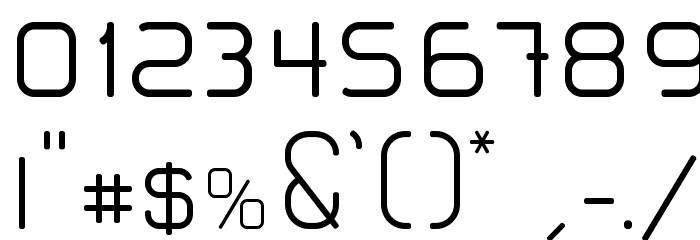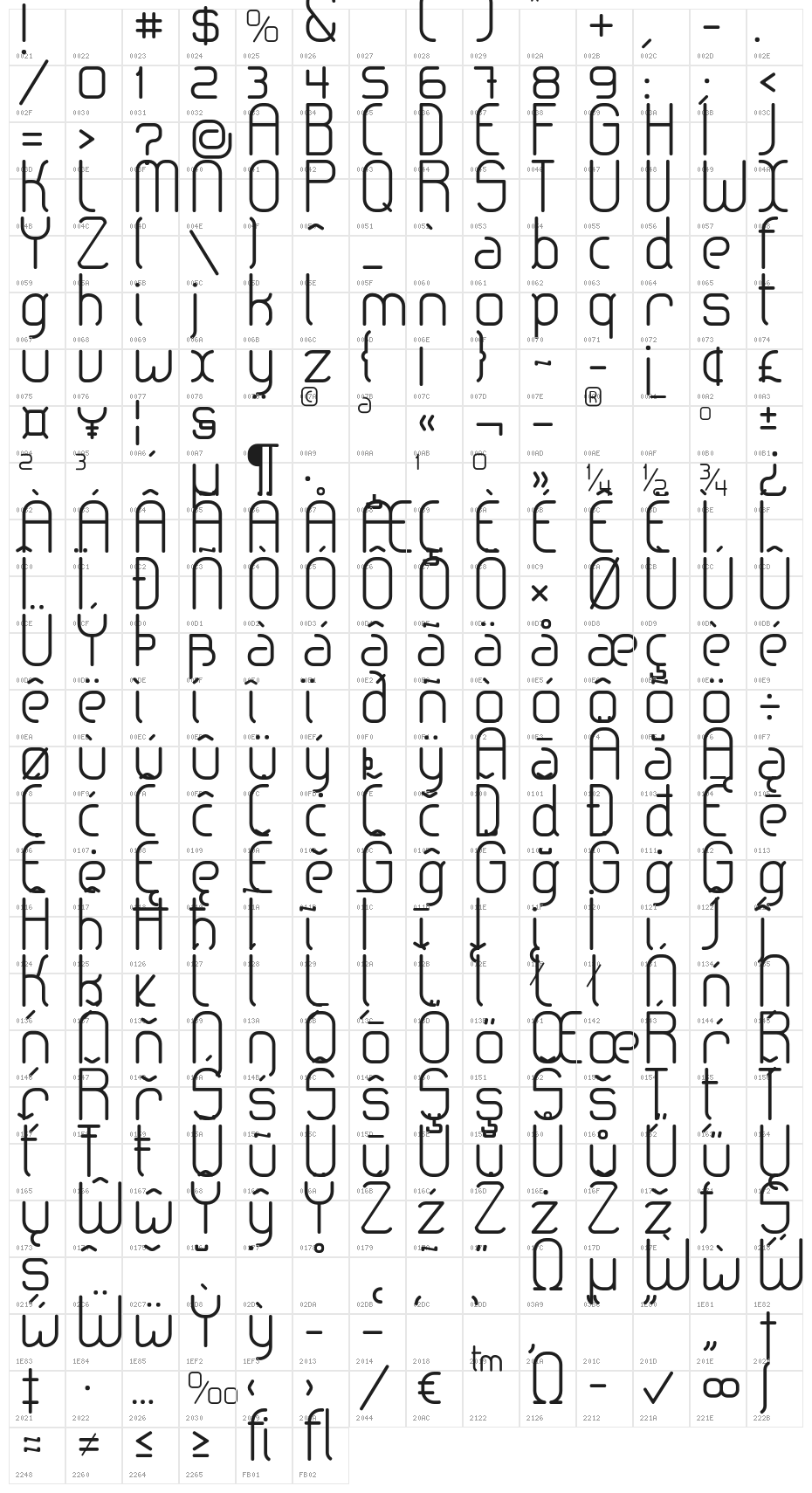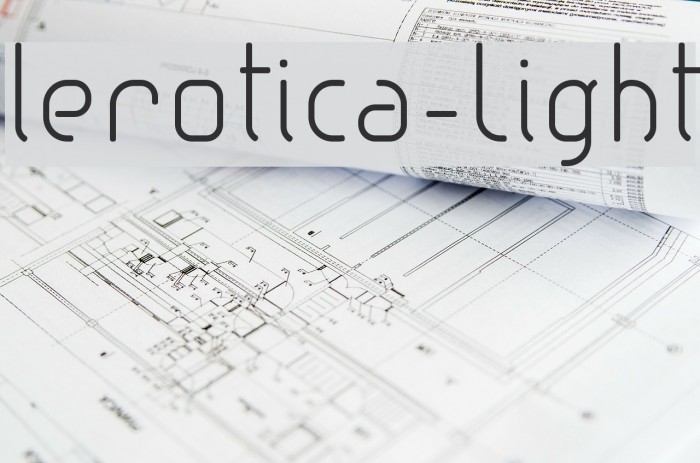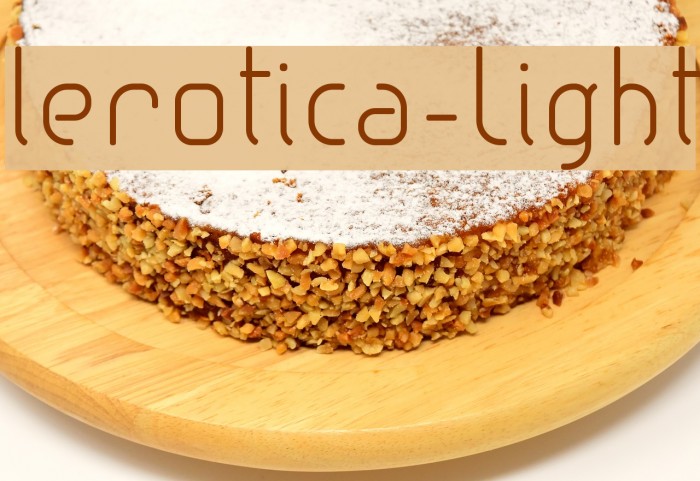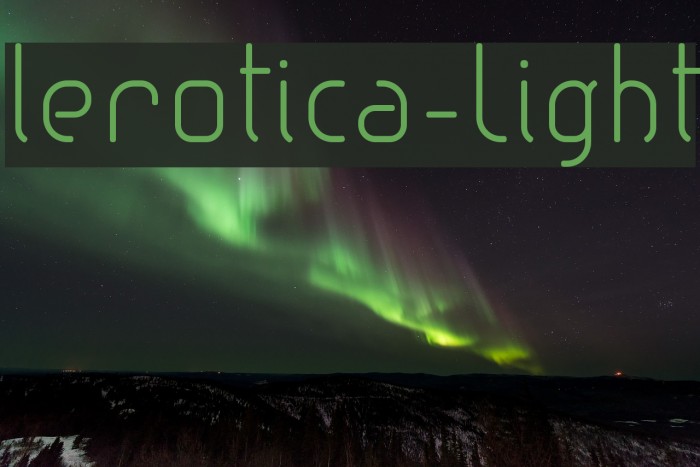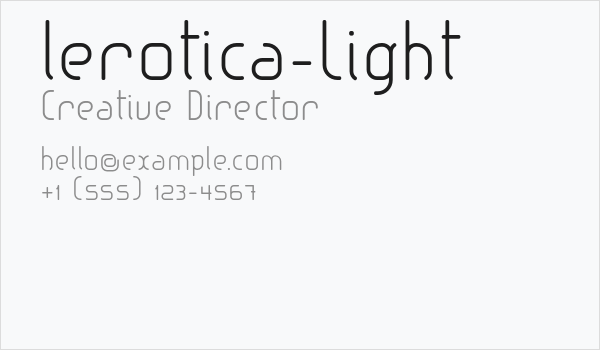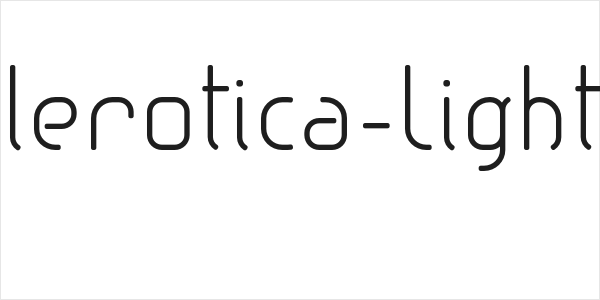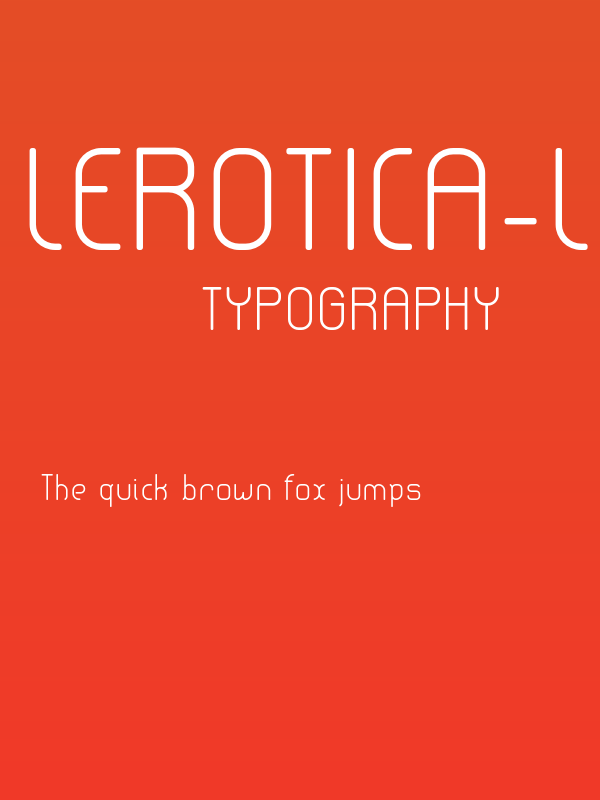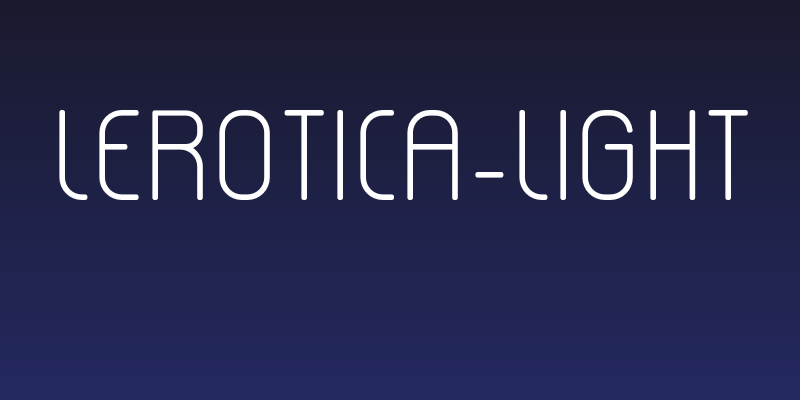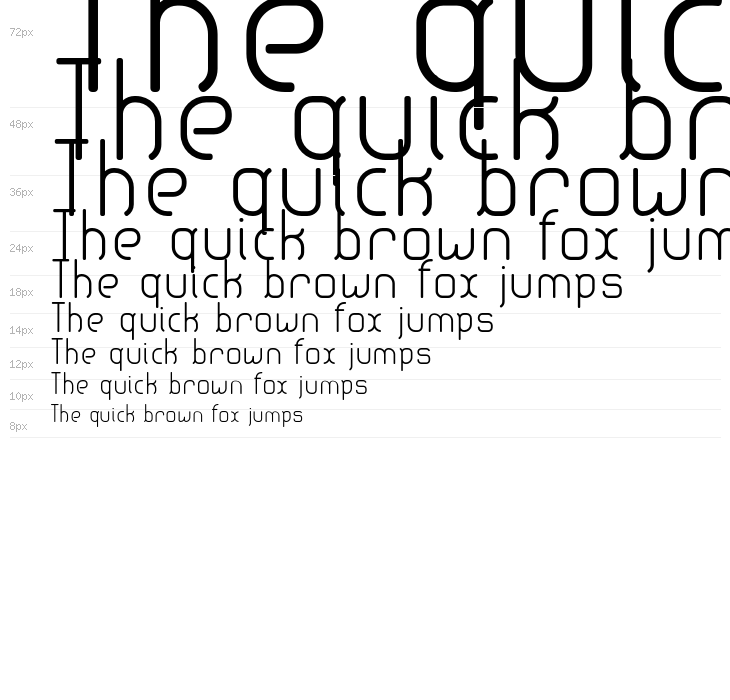
lerotica-Light Font
lerotica-Light Description
This font features a clean, geometric design with rounded edges, giving it a modern and approachable feel. The characters are evenly spaced, with a consistent stroke width that maintains readability across different sizes. The uppercase letters are slightly taller than the lowercase, providing a balanced look. The numerals and special characters follow the same design principles, ensuring uniformity throughout. Its simplicity and clarity make it versatile for various applications.
| Proposed Projects | Ideal for tech branding, user interfaces, modern advertising, and minimalist design projects. |